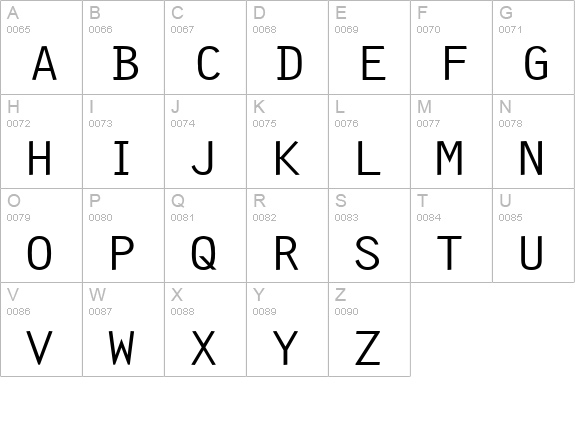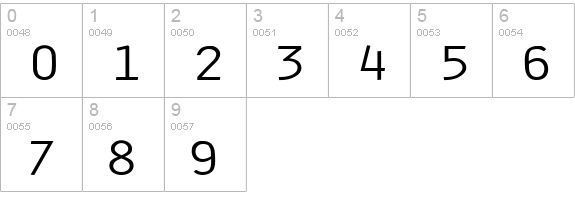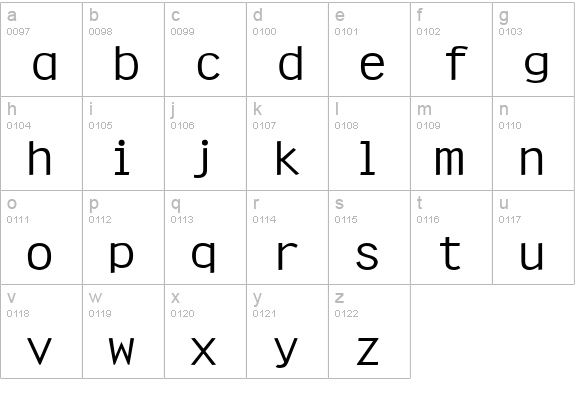
Clean Wide Normal is the standard, neutral, extended-width variant in the Clean typeface family \xE2\x80\x94 well suited to general body text, paragraphs, and standard typographic work.
The Clean Wide Normal font is a versatile and modern typeface that exudes simplicity and elegance. With its clean lines and spacious letterforms, this font is perfect for a wide range of design projects, from branding to editorial design. The wide spacing between characters adds a touch of sophistication, making any text look polished and professional. Best of all, the Clean Wide Normal font is available for free download at FontsMarket.com. This means that you can easily access and use this stylish font in your projects without any cost. Whether you're working on a website, flyer, or logo design, the Clean Wide Normal font is a fantastic choice that will elevate your work and give it a fresh and contemporary look. Download this font today and start creating stunning designs with ease.